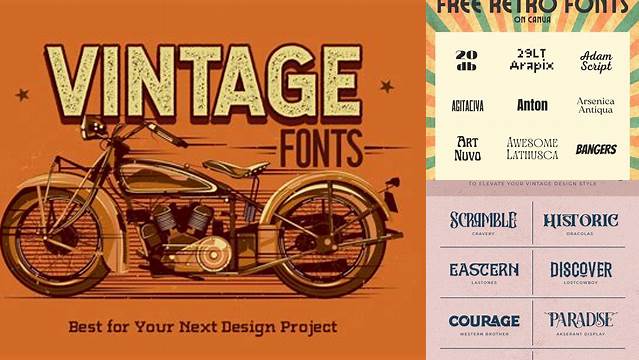
Free Retro Fonts: Best Vintage Font Downloads
Retro fonts have made a significant comeback in the design world, bringing with them a sense of nostalgia and vintage charm. Retro fonts are not just about fonts; they are a trip down memory lane, evoking the styles of past decades. If you're looking to infuse your designs with a touch of the past, you're in luck! There are numerous retro fonts available for free, and we're here to guide you through the best options. In this article, we'll explore what makes a font "retro," the different styles of retro fonts, and where you can find them for your next project. So, whether you're a seasoned designer or just starting out, get ready to dive into the world of retro typography and discover the perfect free font to bring your vision to life.
What Makes a Font Retro?
So, what exactly makes a font "retro"? Retro fonts typically draw inspiration from typefaces popular in past eras, such as the mid-20th century, including the 1950s, 1960s, 1970s, and 1980s. These fonts often feature distinct characteristics that were trendy during those times, such as bold, script, or geometric letterforms. A retro font isn't just about replicating an old style; it's about capturing the essence and spirit of a bygone era. Think about the fonts you might see on old movie posters, vintage advertisements, or classic book covers β these are the kinds of styles that retro fonts aim to emulate. The key characteristics of retro fonts include a sense of nostalgia, a bold and expressive design, and a unique personality that sets them apart from modern, minimalist typefaces. Whether it's the rounded edges of a groovy 1970s font or the sharp, geometric shapes of a mid-century modern typeface, retro fonts have a way of transporting us back in time. To truly understand what makes a font retro, itβs helpful to look at specific examples and the historical context behind them. For instance, fonts inspired by the Art Deco movement of the 1920s and 1930s often feature elegant, stylized letterforms with a sense of glamour and sophistication. On the other hand, fonts reminiscent of the 1950s might have a playful, whimsical feel, reflecting the optimism and exuberance of that era. By understanding the historical influences and design trends of different decades, you can better appreciate the nuances of retro fonts and how they can be used to evoke a specific mood or aesthetic in your designs. So, next time you come across a font that feels like itβs been plucked from the past, take a closer look β itβs likely a retro font with a story to tell. Retro fonts are more than just a design choice; they are a way to connect with history and bring a unique, timeless quality to your projects.
Key Characteristics of Retro Fonts
When you're diving into the world of retro fonts, it's essential to understand the key characteristics that make these typefaces stand out. These fonts aren't just about looking old; they're about capturing the essence of a specific era. First off, boldness is a significant trait. Many retro fonts feature thick, eye-catching strokes that demand attention, reminiscent of the strong, graphic styles used in vintage advertising and posters. This boldness helps to convey a sense of confidence and impact, making your message hard to ignore. Script fonts are another hallmark of the retro aesthetic. Think about the flowing, elegant cursive styles that were popular in the mid-20th century. These fonts often have a handwritten feel, adding a personal and sophisticated touch to designs. Script fonts can range from formal and refined to playful and casual, offering a wide variety of options depending on the specific mood you want to create. Geometric letterforms are also a prominent feature in many retro fonts. These fonts draw inspiration from the clean, structured designs of the mid-century modern era, often incorporating shapes like circles, squares, and triangles into the letterforms. Geometric fonts have a distinctive, modern-yet-retro vibe that can add a touch of sophistication and order to your designs. Beyond these specific characteristics, retro fonts often evoke a sense of nostalgia. They remind us of the past, bringing back memories of specific eras and styles. This nostalgic quality can be a powerful tool in design, helping to connect with audiences on an emotional level. In addition to the specific design elements, the overall personality of the font is crucial. Retro fonts tend to have a unique personality that sets them apart from more generic typefaces. Whether it's the playful charm of a 1950s-inspired font or the sleek elegance of an Art Deco typeface, retro fonts have a way of injecting character and style into your projects. So, when you're selecting a retro font, consider these key characteristics β boldness, script elements, geometric shapes, nostalgia, and overall personality β to ensure you're choosing a typeface that truly captures the retro vibe you're aiming for. These elements combine to create fonts that are not only visually appealing but also rich in history and character, making them a fantastic choice for a wide range of design projects.
Different Styles of Retro Fonts
Alright, let's talk about the different styles you'll find in the awesome world of retro fonts. There's a huge variety out there, each with its own unique vibe and historical inspiration. Understanding these styles can really help you nail the perfect look for your project. First up, we've got the Mid-Century Modern fonts. These guys are inspired by the clean, minimalist designs of the 1950s and 1960s. Think Mad Men era β sleek lines, geometric shapes, and a sophisticated feel. These fonts are perfect if you want to add a touch of class and understated cool to your design. Then there are the 1970s Groovy fonts. These fonts are all about fun, psychedelic vibes. Picture rounded edges, bold curves, and a general sense of funkiness. They're perfect for projects that need a bit of playful energy and a retro disco feel. Next, we've got the Art Deco fonts. These fonts are inspired by the glamorous and elegant designs of the 1920s and 1930s. They often feature stylized letterforms, geometric shapes, and a sense of luxury. If you're aiming for a vintage, sophisticated look, Art Deco fonts are a fantastic choice. And let's not forget the 1980s Retro fonts. These fonts are all about bold, neon-lit vibes. Think big, blocky letters, bright colors, and a touch of digital flair. They're perfect for projects that need a splash of vibrant energy and a nostalgic nod to the era of arcades and MTV. Besides these, you might also come across script fonts with a retro twist, which can add a personal, handwritten feel reminiscent of vintage signage and advertising. These fonts often have a casual elegance that's perfect for projects that need a touch of warmth and authenticity. Understanding these different styles helps you choose the right font for your specific needs. Each style brings its own unique flavor and historical context, so consider the mood and message you want to convey when making your selection. Whether you're creating a poster, designing a logo, or working on a website, the right retro font can make all the difference in capturing that perfect vintage feel. Retro fonts are a diverse bunch, and exploring these styles is part of the fun!
Mid-Century Modern Fonts
So, let's dive a bit deeper into one of the coolest styles of retro fonts: Mid-Century Modern. Guys, these fonts are seriously sleek and sophisticated, drawing their inspiration from the iconic design era of the 1950s and 1960s. Think clean lines, geometric shapes, and a generally minimalist aesthetic. These fonts are all about understated elegance and a timeless feel. Mid-Century Modern fonts often feature letterforms that are simple and uncluttered, with a focus on functionality and clarity. They avoid excessive ornamentation and instead rely on the inherent beauty of well-designed shapes. This makes them incredibly versatile, suitable for a wide range of design projects, from logos and branding to posters and websites. One of the defining characteristics of Mid-Century Modern fonts is their geometric nature. You'll often see circles, squares, and triangles incorporated into the letterforms, creating a sense of order and structure. This geometric influence gives these fonts a modern edge while still retaining a classic, retro vibe. The overall feel of Mid-Century Modern fonts is one of sophistication and intelligence. They evoke the Mad Men era, with its emphasis on stylish simplicity and forward-thinking design. If you're looking to add a touch of class and timeless cool to your project, these fonts are an excellent choice. When you're using Mid-Century Modern fonts, consider pairing them with other design elements that reflect the same aesthetic. Clean lines, simple color palettes, and a focus on functionality will all help to enhance the retro vibe. These fonts also work well with a variety of different media, from print to digital, making them a versatile addition to your design toolkit. To sum it up, Mid-Century Modern fonts are a fantastic option for anyone looking to capture the essence of this iconic design era. Their sleek lines, geometric shapes, and overall sense of sophistication make them a standout choice for a wide range of projects. So, if you're aiming for a look that's both retro and modern, give these fonts a try β you won't be disappointed! Retro fonts in the Mid-Century Modern style are a surefire way to bring a touch of timeless elegance to your designs, guys.
Tips for Using Retro Fonts Effectively
Okay, so you've got your hands on some awesome retro fonts β that's fantastic! But how do you actually use them effectively in your designs? Don't worry, guys, we've got some tips and tricks to help you make the most of these vintage-inspired typefaces. First and foremost, consider the context of your project. Retro fonts are all about evoking a specific era or style, so think about the mood and message you want to convey. Are you going for a 1950s diner vibe? Or a 1980s arcade feel? The right retro font can help you nail that look, but it's crucial to choose a font that fits the overall theme of your design. Next up, think about legibility. While retro fonts can be super stylish, some of them can be tricky to read, especially in large blocks of text. If you're using a more decorative retro font, consider using it for headlines and titles, and pair it with a cleaner, more legible font for body text. This will help ensure that your message is clear and easy to read. Pairing fonts is another key aspect of using retro fonts effectively. Combining a retro font with a modern typeface can create a cool, contrasting effect that's both eye-catching and balanced. Experiment with different combinations to see what works best for your project. For example, you might pair a bold, script retro font with a clean sans-serif font for a modern-vintage look. Color is also a crucial element when working with retro fonts. Think about the color palettes that were popular in the era your font is inspired by. Bright, bold colors were common in the 1950s and 1960s, while neon colors were all the rage in the 1980s. Using these colors in your design can help to enhance the retro vibe and create a cohesive look. Don't be afraid to experiment with different sizes and weights of your retro fonts. A bold, oversized retro font can make a powerful statement in a headline, while a lighter weight might work better for smaller text. Playing with the scale and weight of your fonts can add visual interest and help to create a dynamic design. Finally, remember to have fun and be creative! Retro fonts are all about expressing personality and style, so don't be afraid to try new things and push the boundaries. With a little experimentation, you can create some truly unique and memorable designs using retro fonts. Retro fonts are a fantastic tool for adding character and flair to your projects, guys. Just keep these tips in mind, and you'll be rocking those vintage vibes in no time!
In conclusion, retro fonts are a fantastic way to add a touch of nostalgia and vintage charm to your design projects. They evoke the styles of past eras, from the sleek lines of Mid-Century Modern to the bold vibes of the 1980s, and offer a diverse range of options for capturing the perfect retro aesthetic. Guys, by understanding the different styles of retro fonts and where to find them for free, you can easily incorporate these typefaces into your work without breaking the bank. Whether you're designing a logo, creating a poster, or building a website, retro fonts can help you create a unique and memorable look. Remember, the key to using retro fonts effectively is to consider the context of your project, pay attention to legibility, and experiment with font pairings, colors, and sizes. By following these tips, you can create designs that are both visually appealing and true to the retro spirit. So, go ahead and dive into the world of retro typography β there are so many amazing fonts out there just waiting to be discovered! Retro fonts are a powerful design tool that can help you connect with your audience on an emotional level, bringing a sense of history and personality to your work. Embrace the vintage vibes, and let your creativity shine. Happy designing, guys!